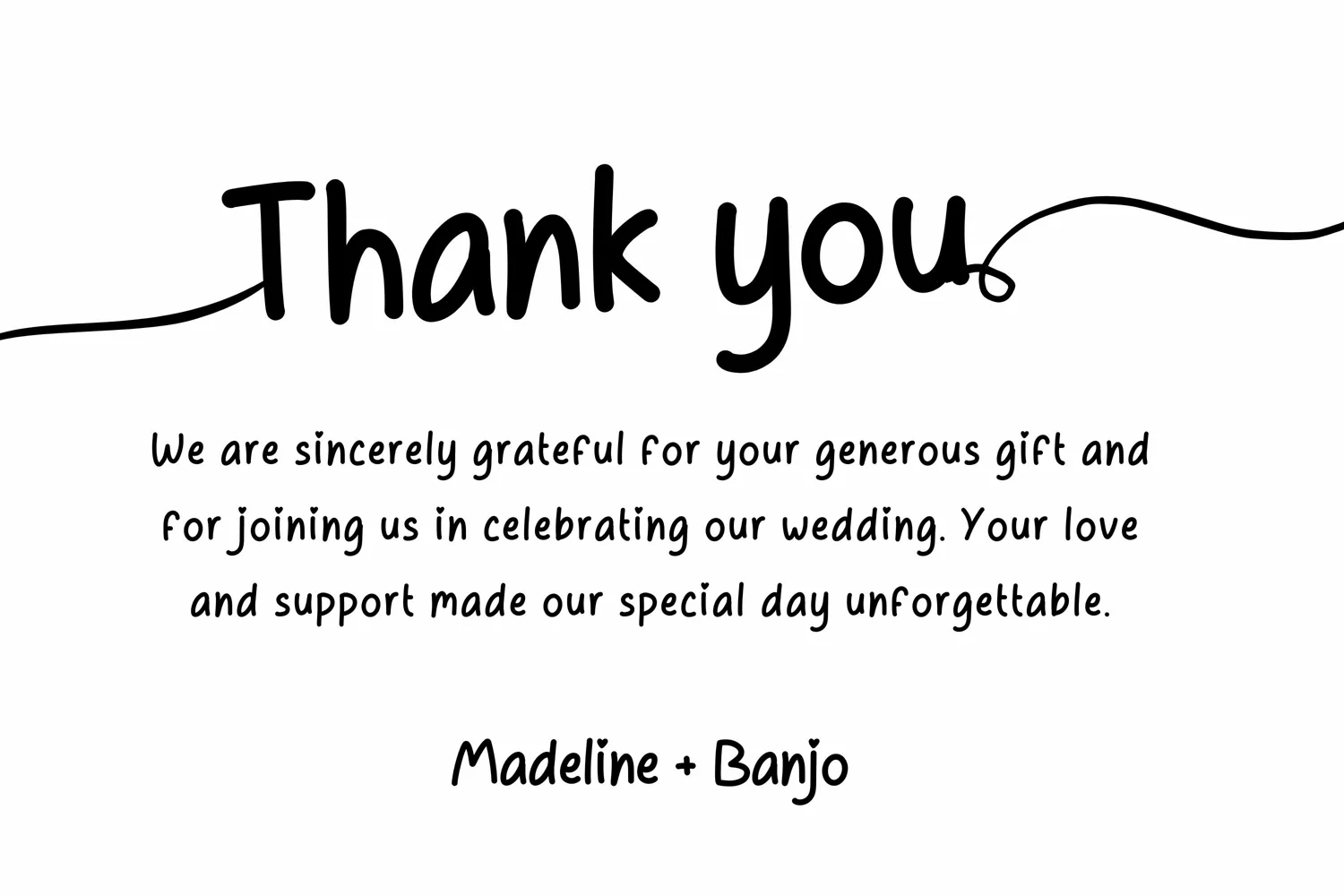
Imagine an extraordinary blend of adorable charm and effortless elegance – that' Crafty Olivia. This one-of-a-kind font possesses a certain special touch, carefully designed to transform your creations with an irresistible allure. Embellish your designs with Crafty Olivia and watch them evolve from simple to simply extraordinary. It's the perfect choice to add an irresistibly cute yet sophisticated flair to your artistic ventures. Crafty Olivia. Effortlessly charming. Elegantly unique.